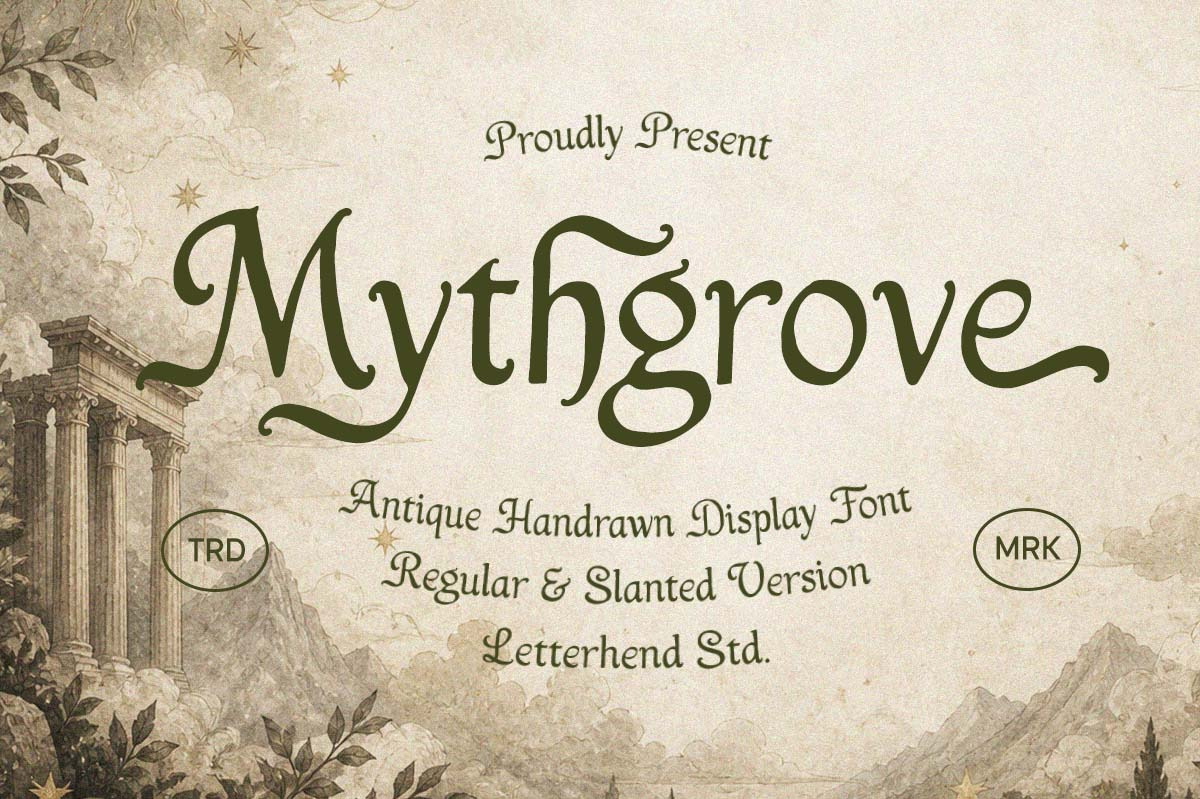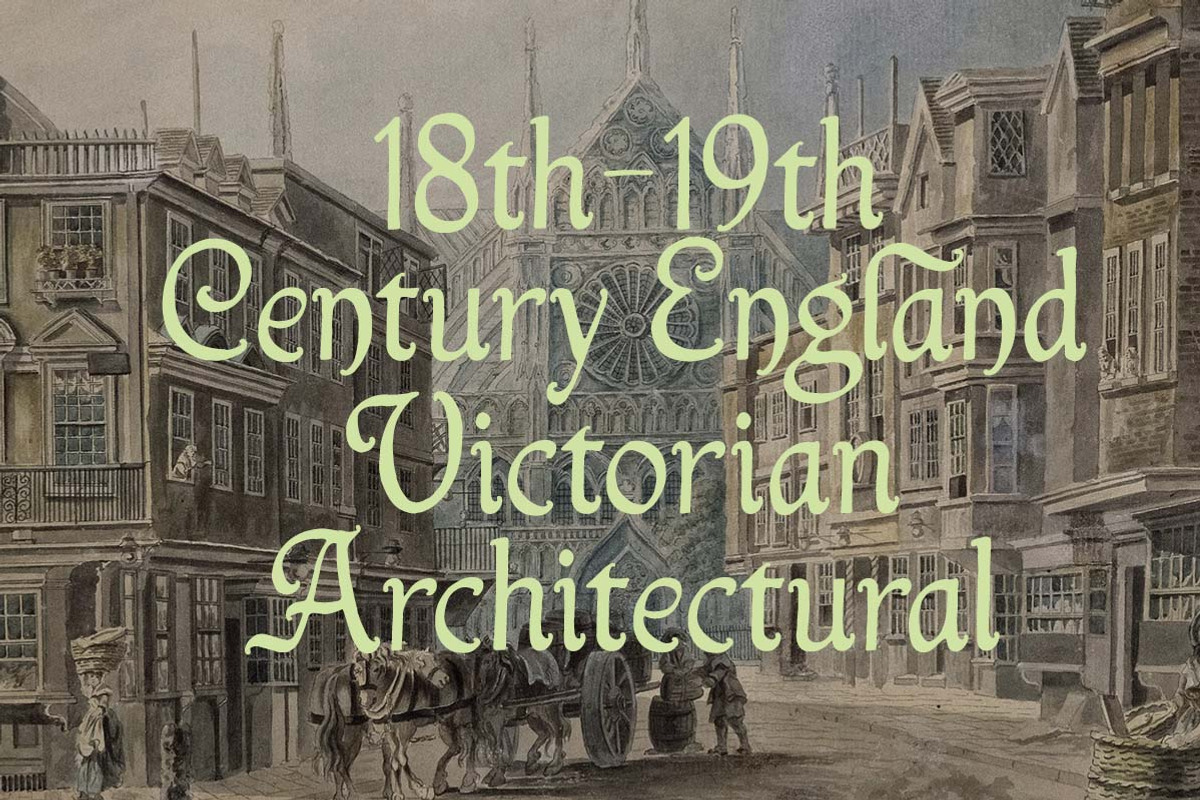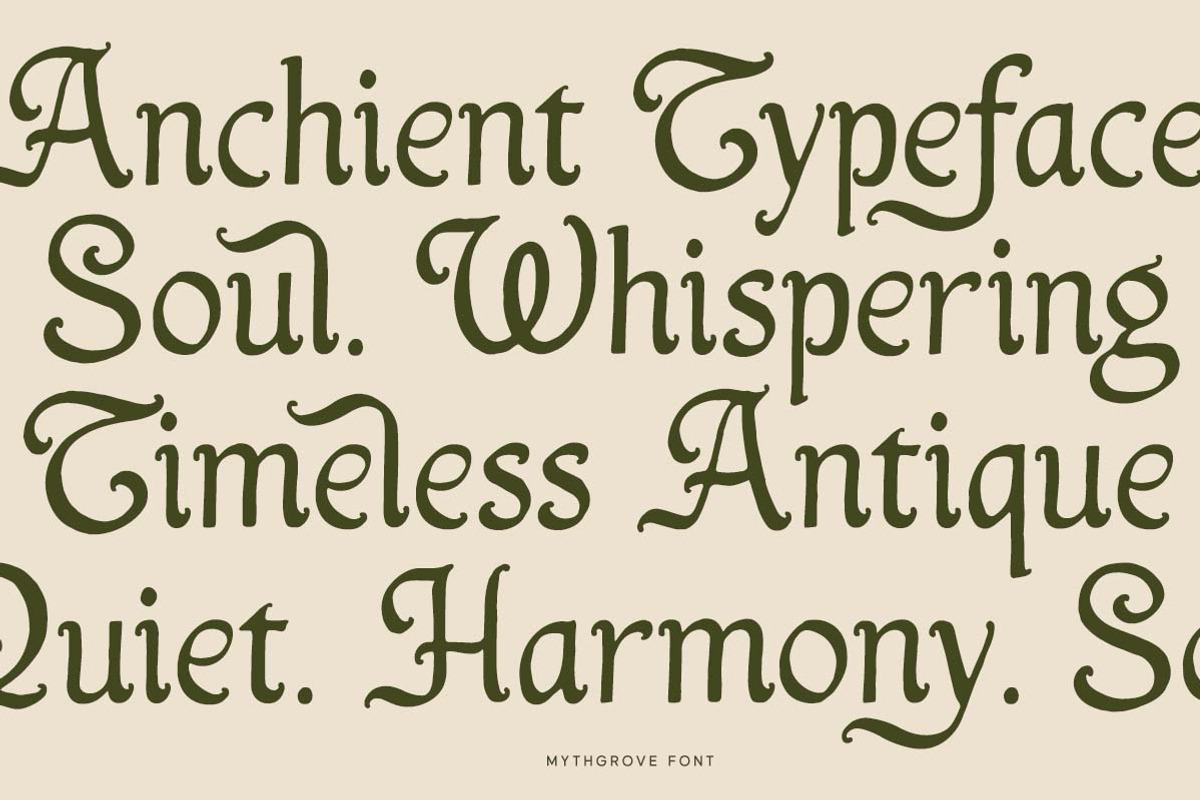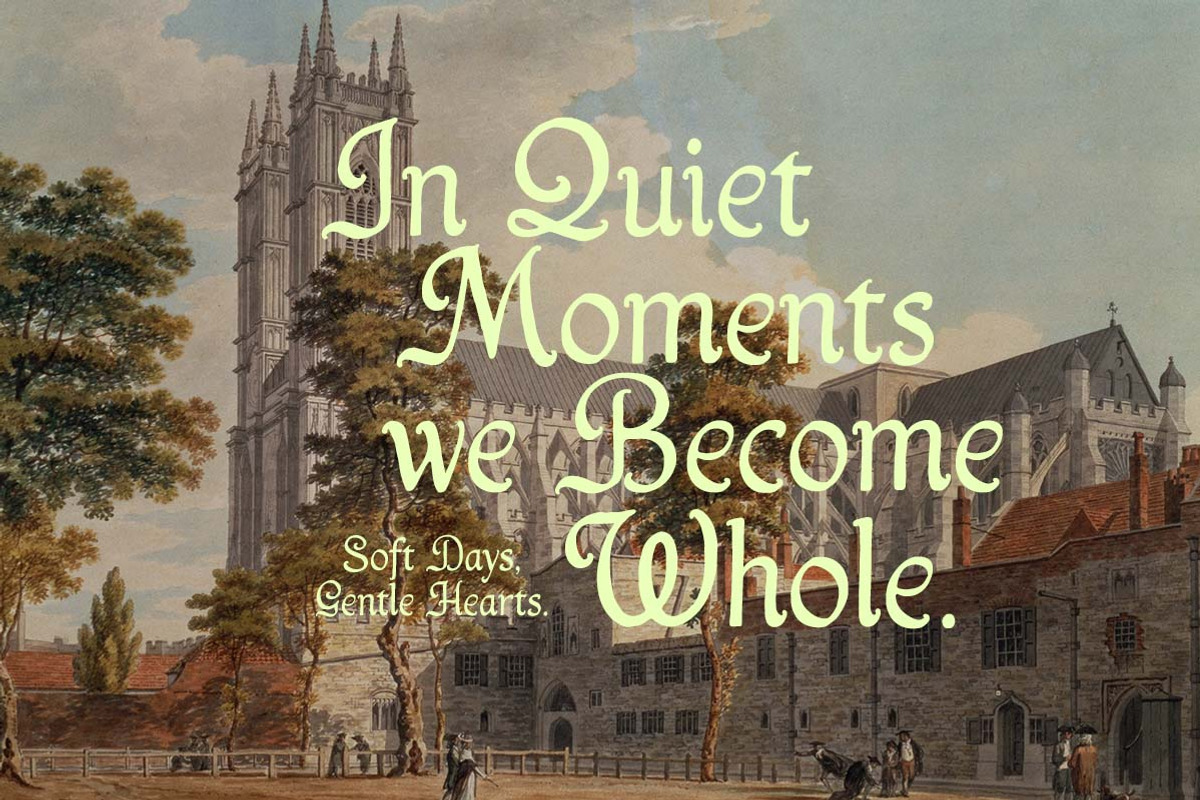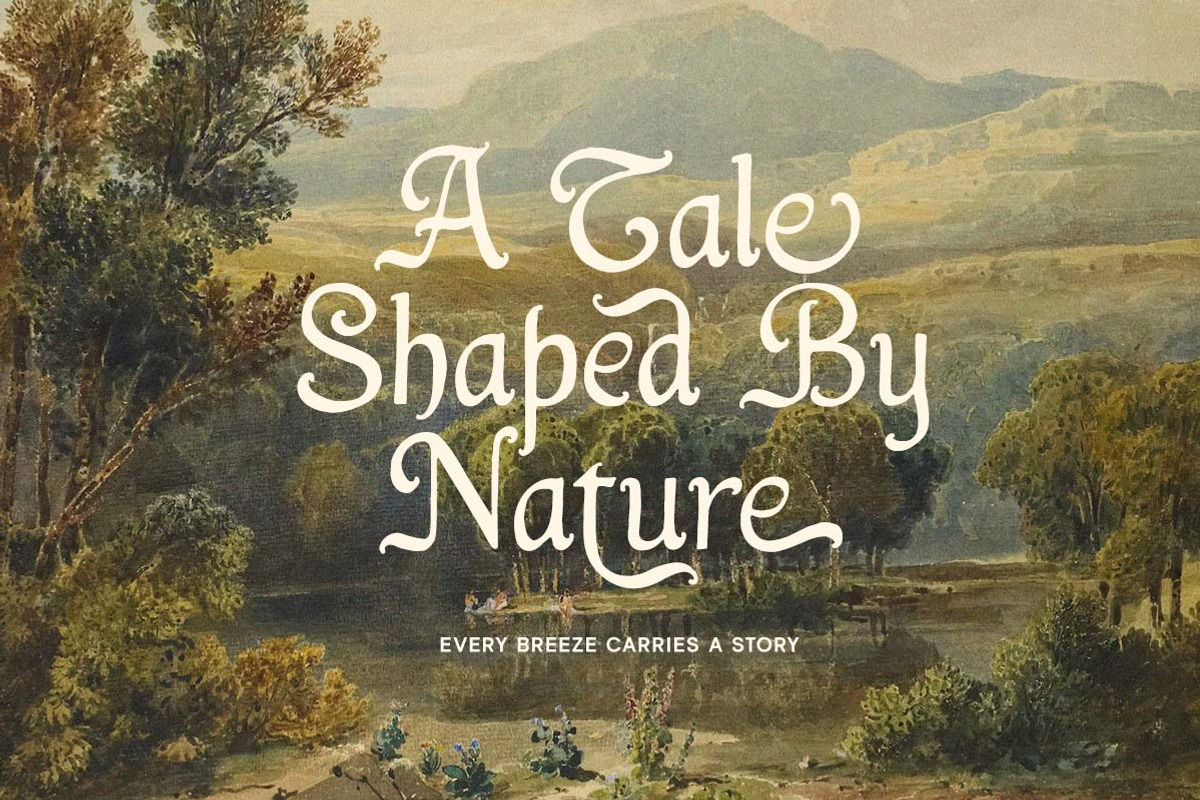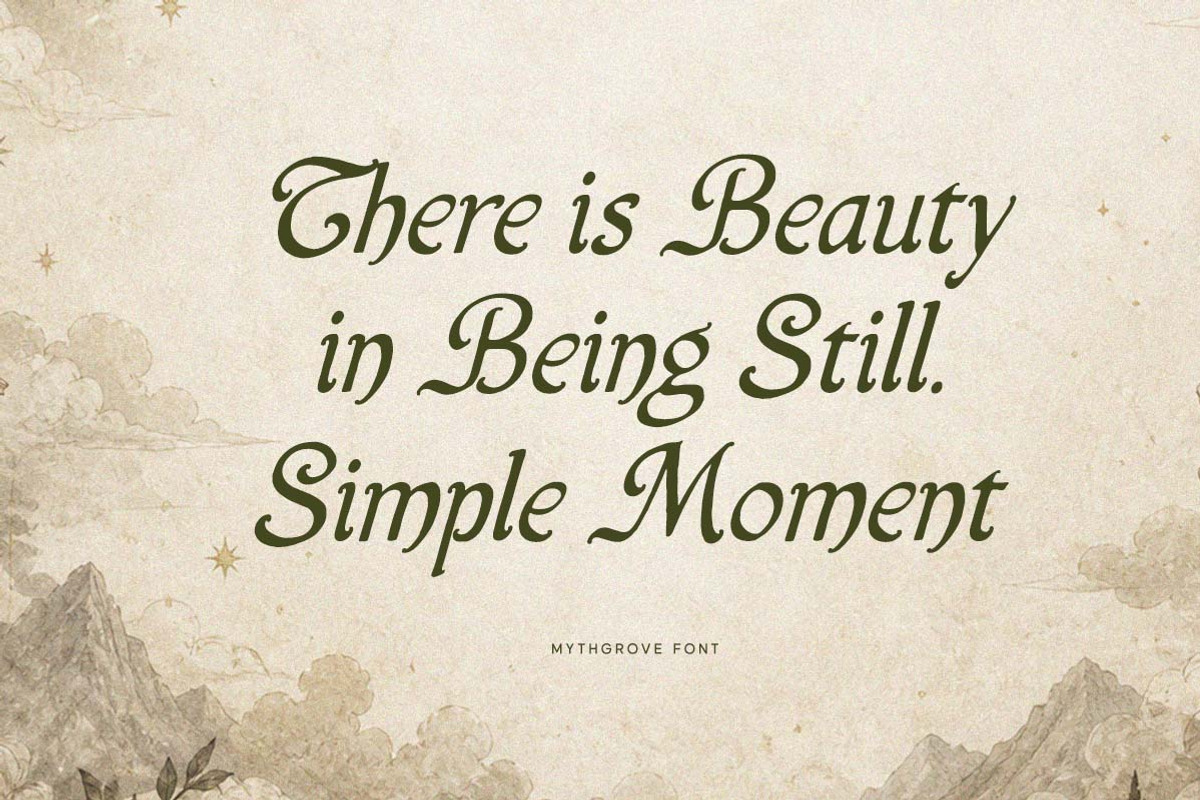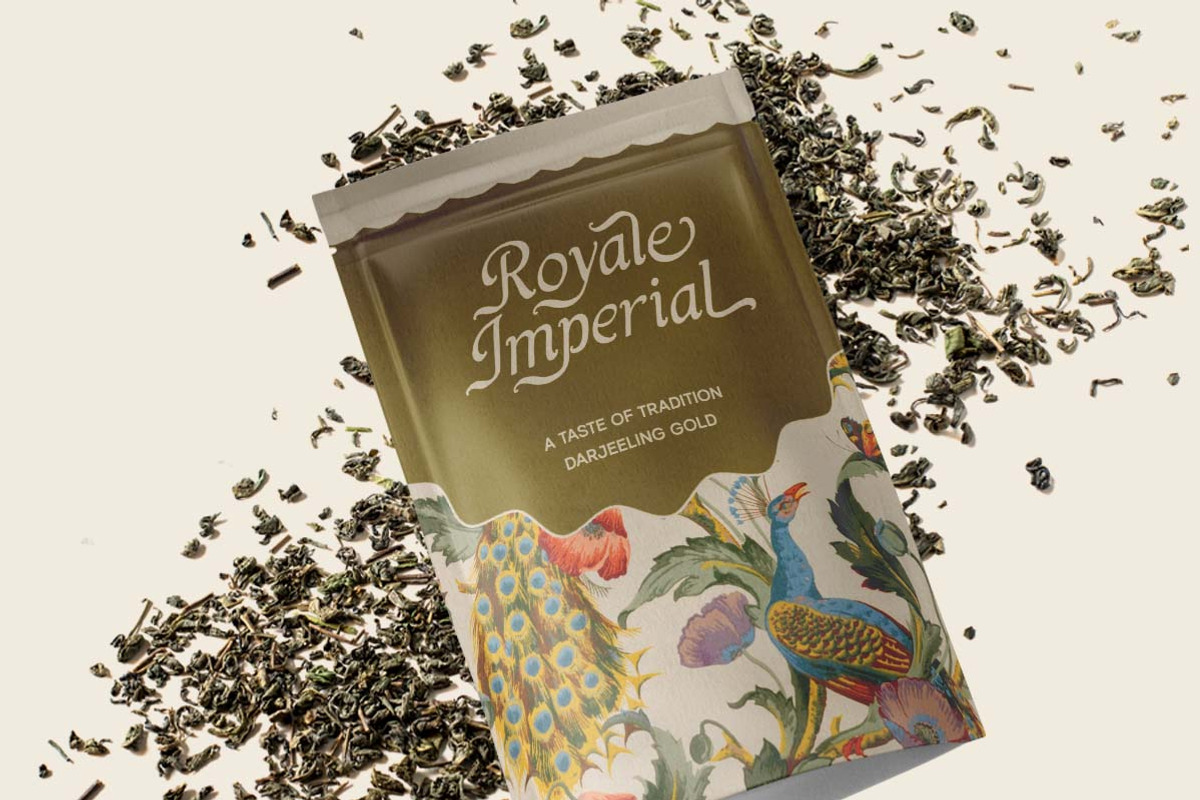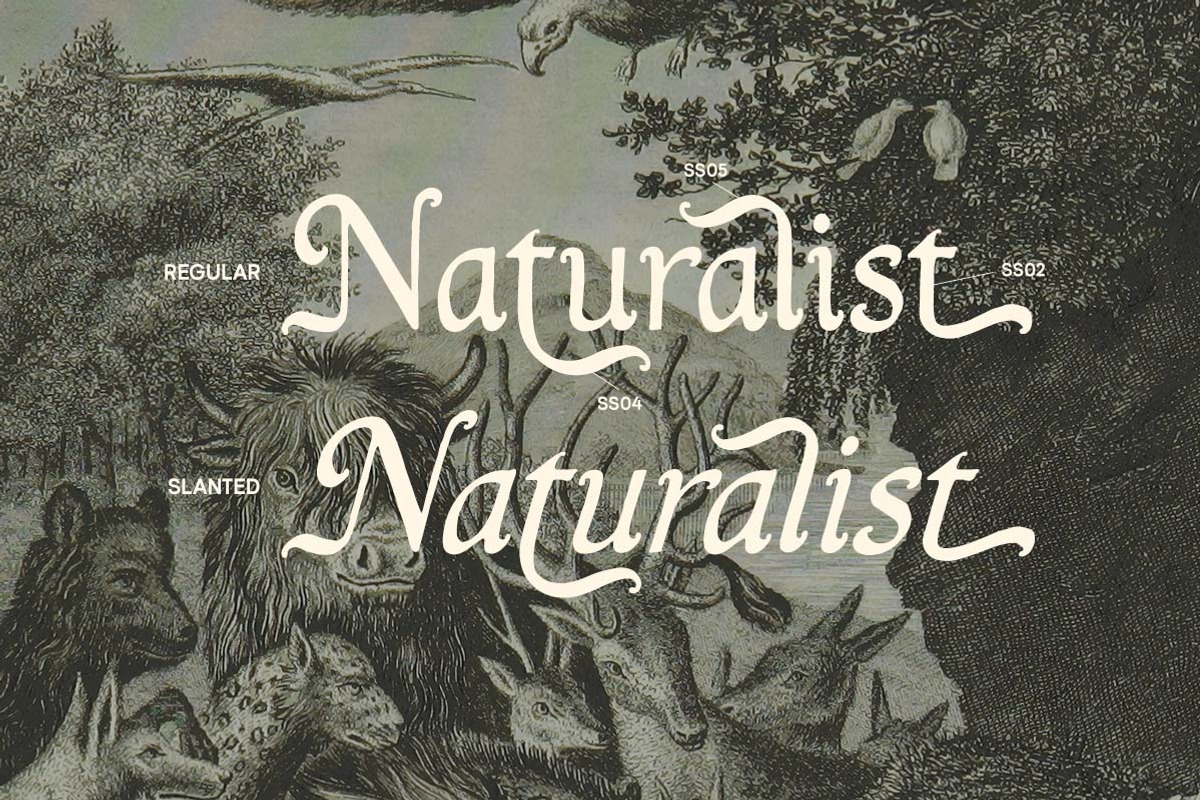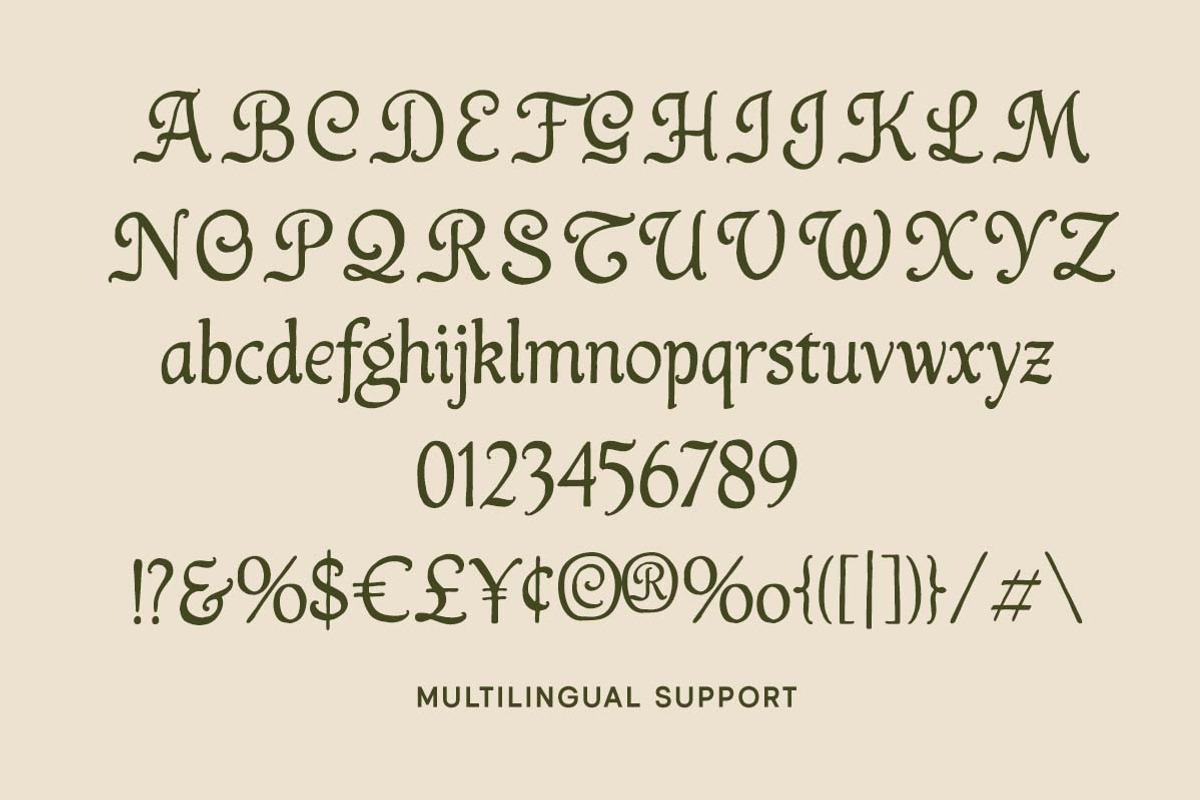
Mythgrove Medieval Display Font
Mythgrove feels like an old story whispered through ancient forests, blending antique hand-drawn shapes with soft fantasy curves and gothic vintage charm. The letters carry a magical medieval touch while still feeling playful and readable, making every word look rich with mystery and adventure.
Uppercase & lowercase
Numbers and punctuation
Alternates & Ligatures